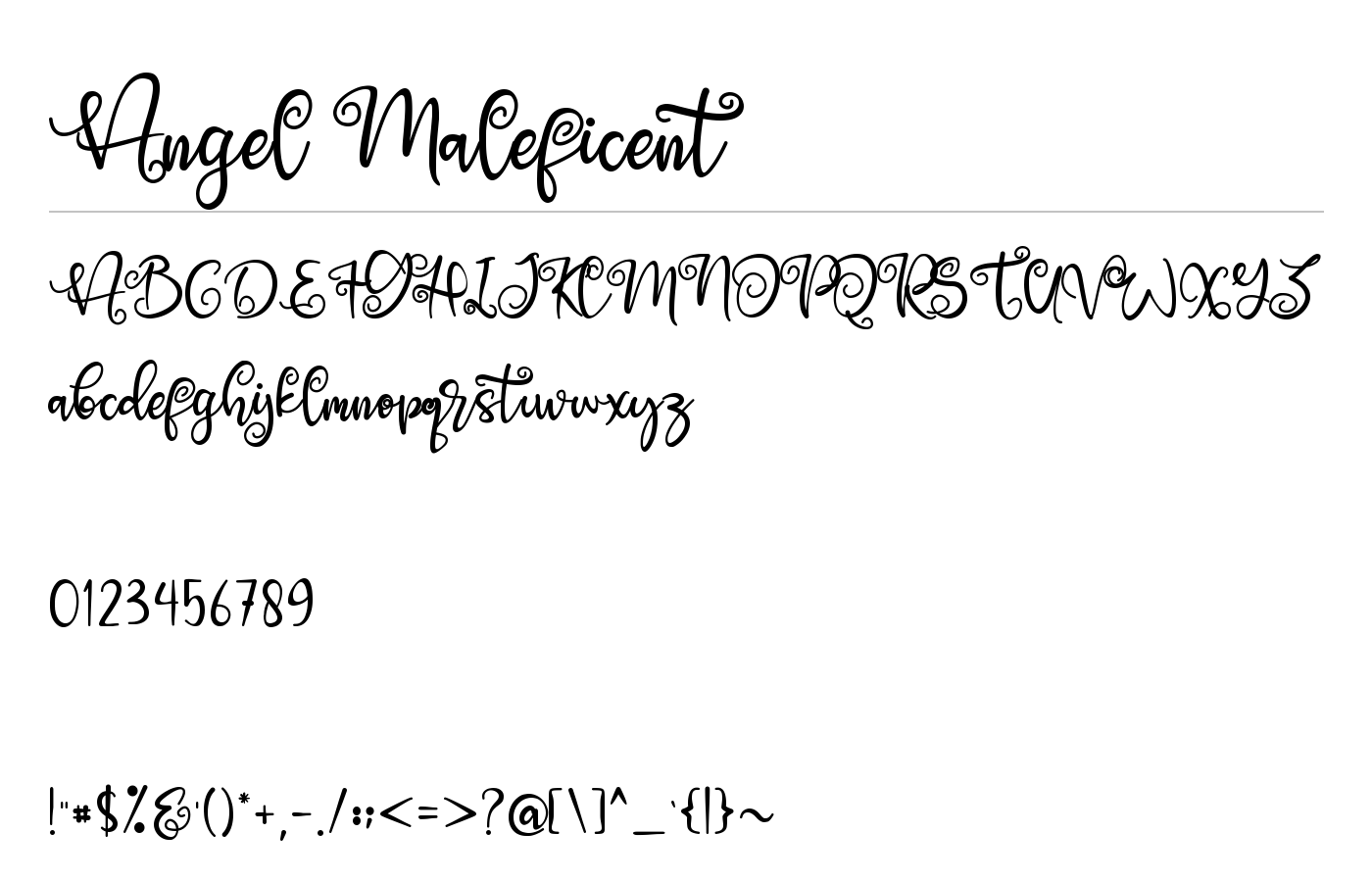
Angel Maleficent is a decorative script font with a playful and whimsical feel, featuring delicate, flowing strokes and charming swirls on many uppercase letters. Its light weight and moderately high x-height make it elegant yet readable, perfect for creative and feminine designs. This font works beautifully for invitations, branding, and packaging where a touch of fantasy and grace is desired.
Angel Maleficent Font
About Angel Maleficent Font